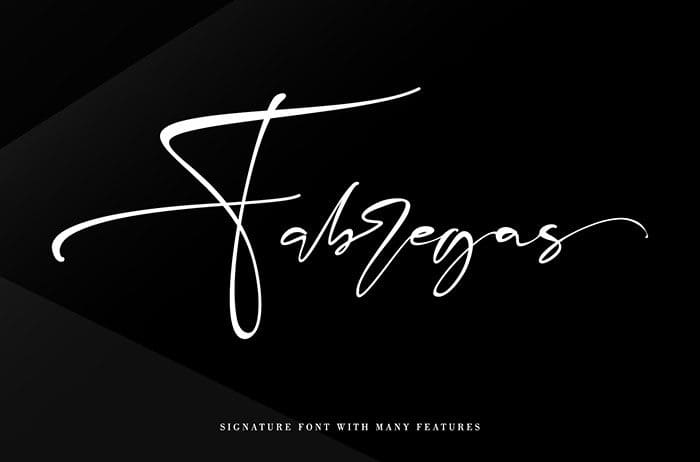
Free Fabregas Handwritten Font
Fabregas Handwritten Font
Free Fabregas handwritten font is a natural & stylish flow. It will add an authentic touch to any design idea. Created this font by Thomas Aradea. You can also search more freeĀ Handwritten Fonts. I hope you enjoy this font.